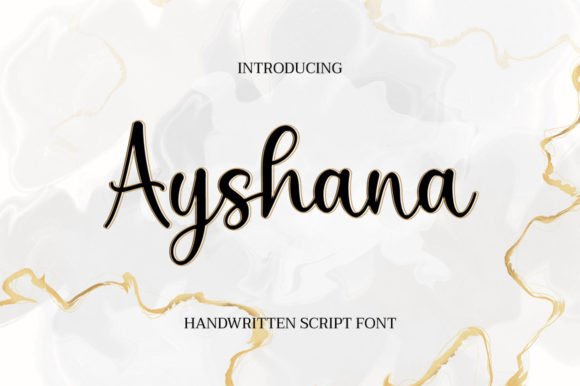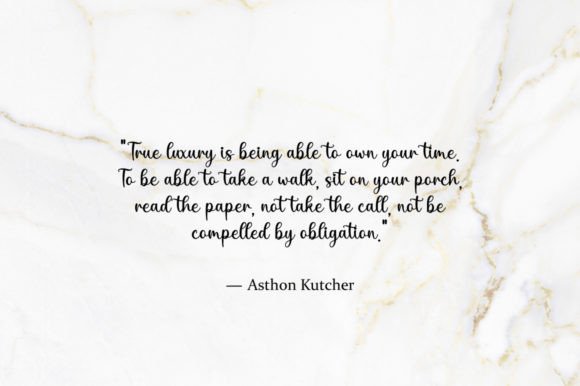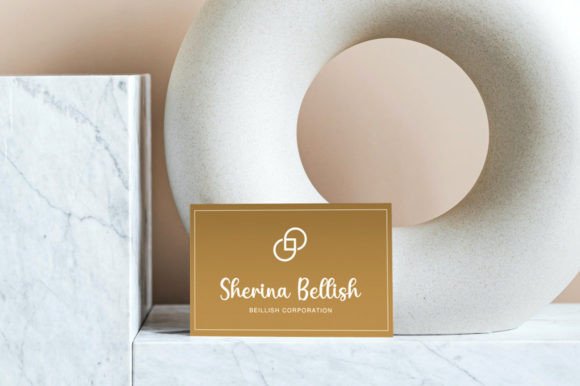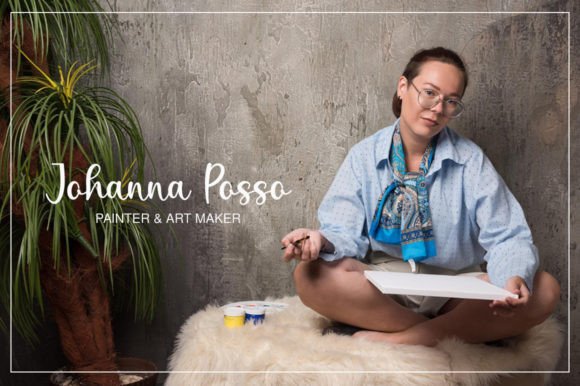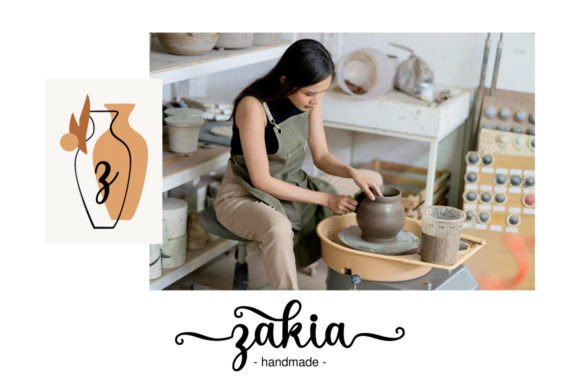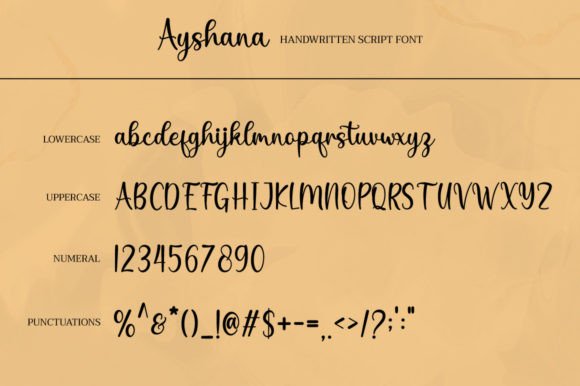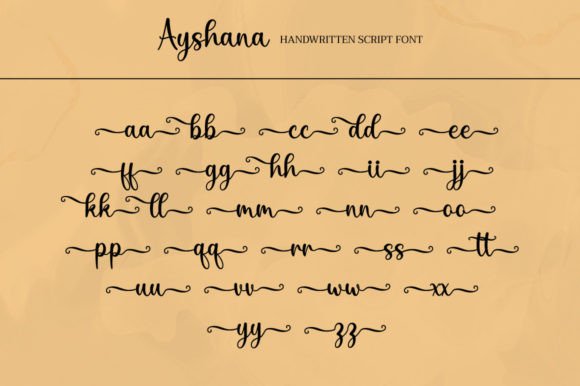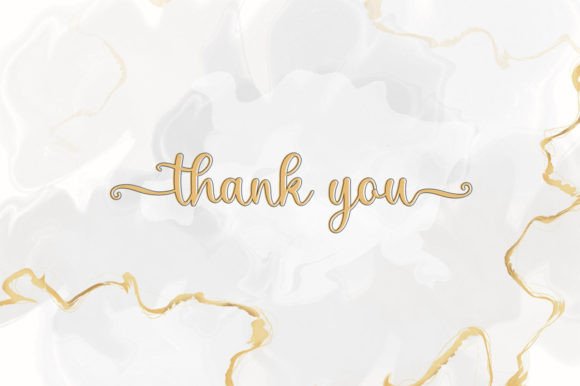
Ayshana Font
About Ayshana Font
“Ayshana” is a lovely and timeless handwritten font known for its versatility and elegance. This font is an excellent choice for creating eye-catching logos, branding materials, and quotes that seek to convey a sense of beauty and sophistication. Additionally, “Ayshana” is PUA encoded, allowing for easy access to all its glyphs and swashes.
The standout qualities of “Ayshana” include its elegance and timeless charm. Its handwritten style is designed to evoke a sense of grace and beauty, making it an ideal choice for projects that require a touch of sophistication and visual appeal.
Imagine using “Ayshana” to design a captivating logo that reflects an elegant and timeless image for your brand. Picture incorporating this font into branding materials such as business cards, stationery, and product packaging to create a cohesive and refined brand identity. “Ayshana” can also add a sense of beauty and elegance to your quotes, making them more captivating and memorable.
In summary, “Ayshana” is more than just a font; it’s a design resource that brings elegance and timeless charm to your creative work. Its handwritten style makes it versatile for various design applications where a touch of sophistication and beauty is desired. Embrace “Ayshana” as a font that enhances your designs and adds a sense of timeless elegance, making them more captivating and memorable.